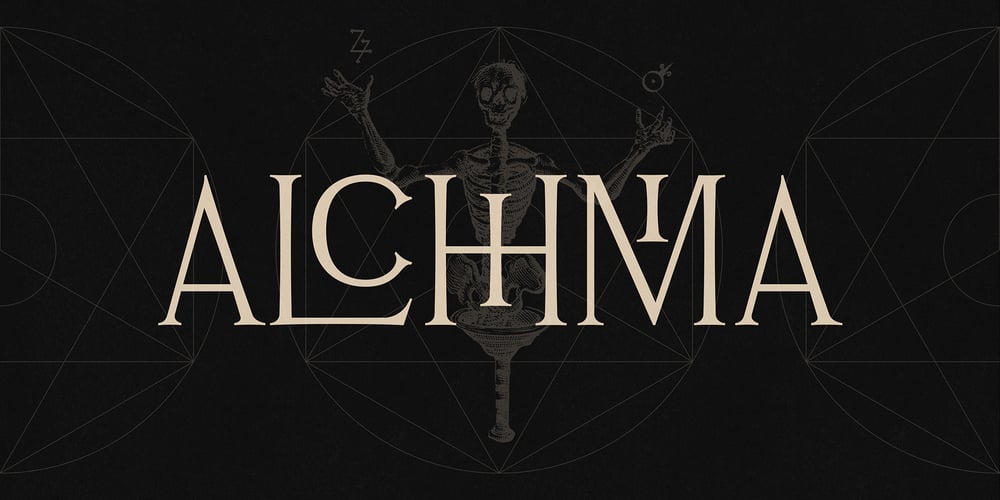
Alchimia
Alchimia font
Alchimia Font Family was designed by Rémi Bordet and published by Bordet Type. Alchimia contains 1 styles and family package options. Alchimia is an all caps serif font with a strong focus on ligatures. It captures the medieval aesthetic of the ancient roman serif fonts and remixes it with a modern approach. Imbricated letters gives to the font a playful yet clean and eerie look. It is designed mainly to be used as a display typeface, and it’s perfect for striking headlines or unique logo designs.FEATURES :— Total Glyph set: 724— Uppercase— Base Latin— Diacritics— Numbers— Symbols— 579 contextual ligatures